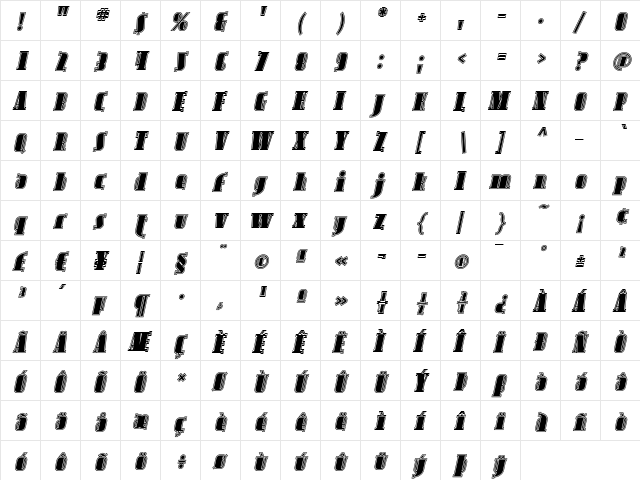
Avondale Inline Italic
| Designer | Derek Vogelpohl |
Design Context for Avondale Inline Typeface
Avondale Inline is built around its visual character rather than neutral utility — its distinctive forms are designed to make an impression at display sizes. Its italic angle brings a sense of urgency and motion to the letterforms.
Font Pairing: Pair with a clean neutral sans-serif for body copy to let Avondale Inline's character lead without overwhelming the composition.
Pro Tip: Use Avondale Inline exclusively at display sizes — it was designed to be seen, not read at length. Let a neutral companion handle body copy.